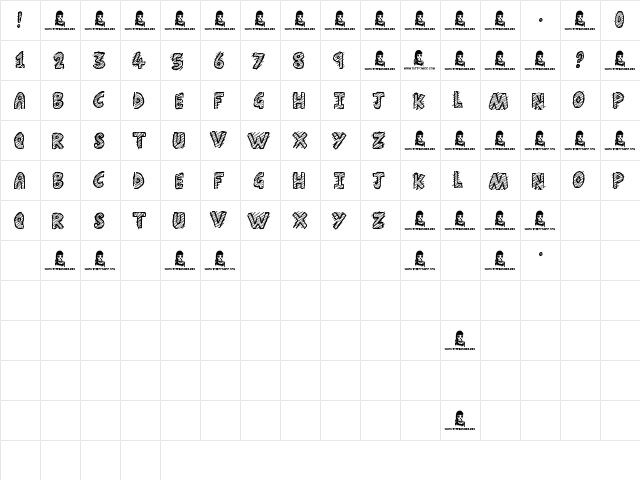
Schools Out!!! Regular
| Foundry | Jonathan S. Harris |
| Designer | Jonathan Stephen Harris |
Design Context for Schools Out!!! Typeface
Schools Out!!! is a composed and adaptable typeface that performs quietly and consistently across a wide range of design contexts.